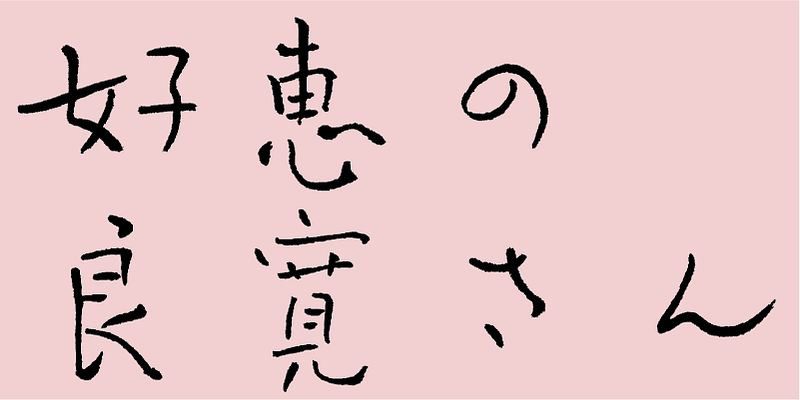
AB Yoshienoryokan M Font Free Download is a warm and inviting typeface inspired by handwritten Japanese scripts, often seen in early education and friendly signage. With its rounded strokes and approachable feel, AB Yoshienoryokan M is perfect for children’s books, educational materials, character branding, and designs that require a gentle, human touch.
This font captures the feel of pen-on-paper handwriting, combining clarity with personality. It supports both Japanese and Latin scripts, allowing for seamless integration in bilingual projects. Its medium weight makes it versatile—suitable for everything from headlines to body text in lighthearted, kid-friendly, or welcoming contexts.